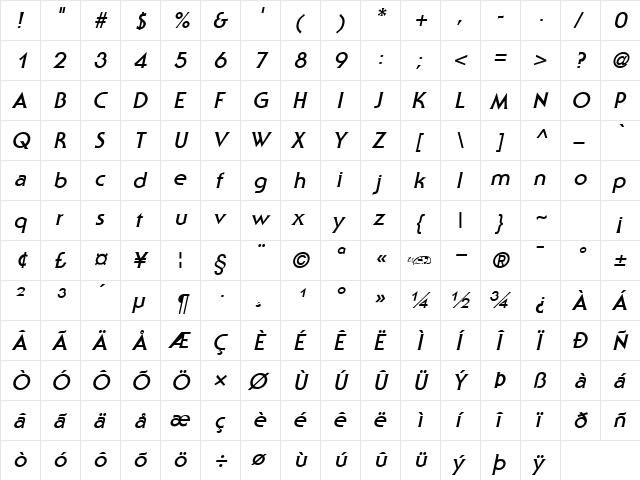
Staid Bold Italic Font Preview
Design Context for Staid Typeface
Staid offers clean, dependable letterforms without strong stylistic allegiance, making it a practical choice for designers who need flexibility. The dynamic lean of this cut emphasises speed and emphasis in any layout. The heavy weight commands attention and anchors typographic hierarchies.
Pro Tip: Try Staid for annotation and caption copy alongside an upright companion — the contrast in angle creates a dynamic but ordered typographic system.